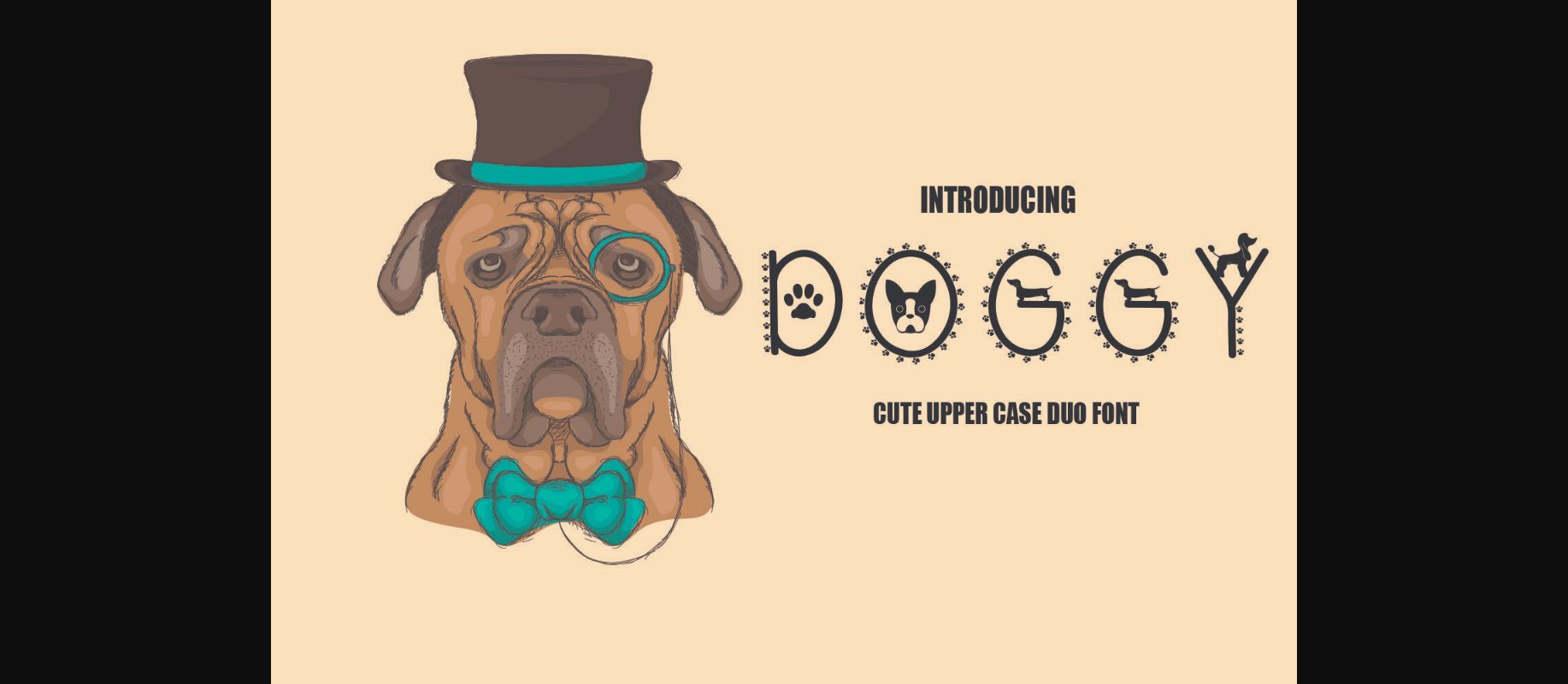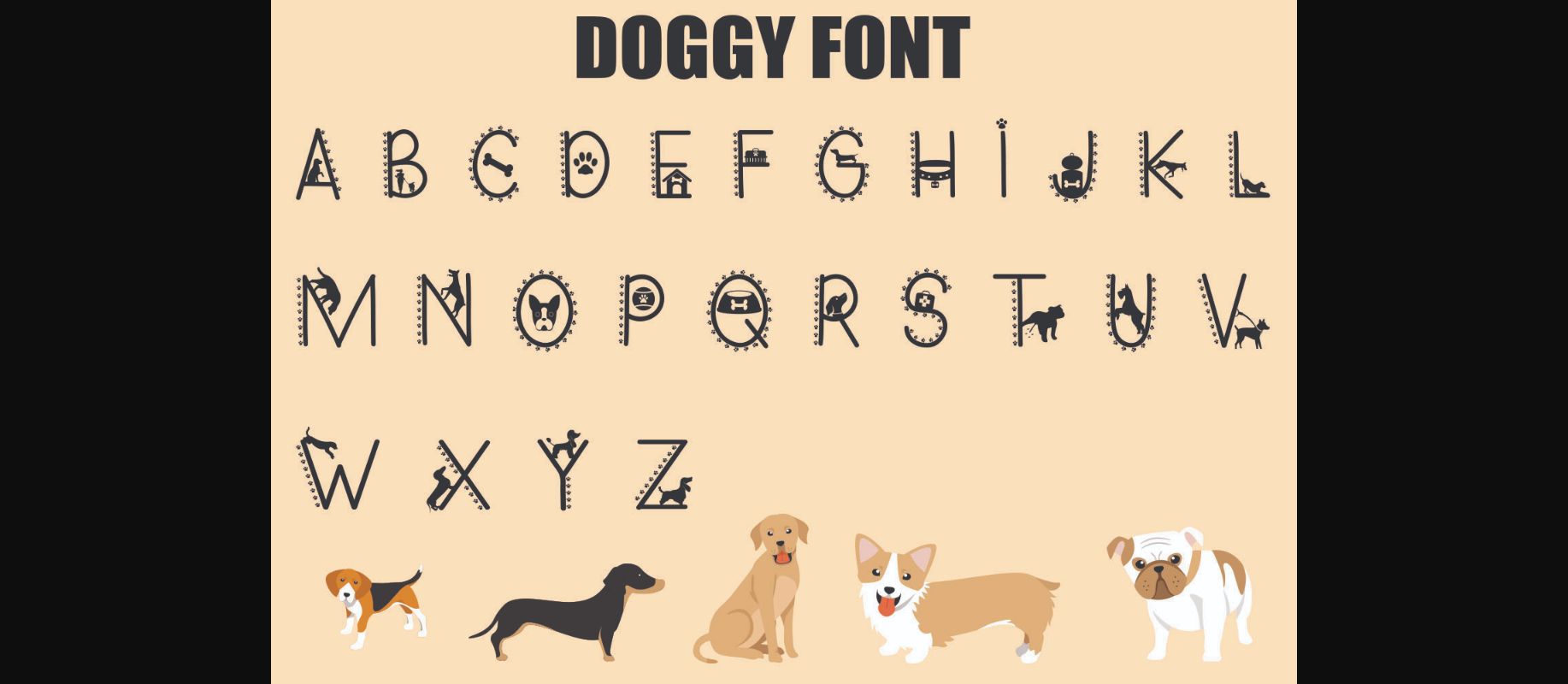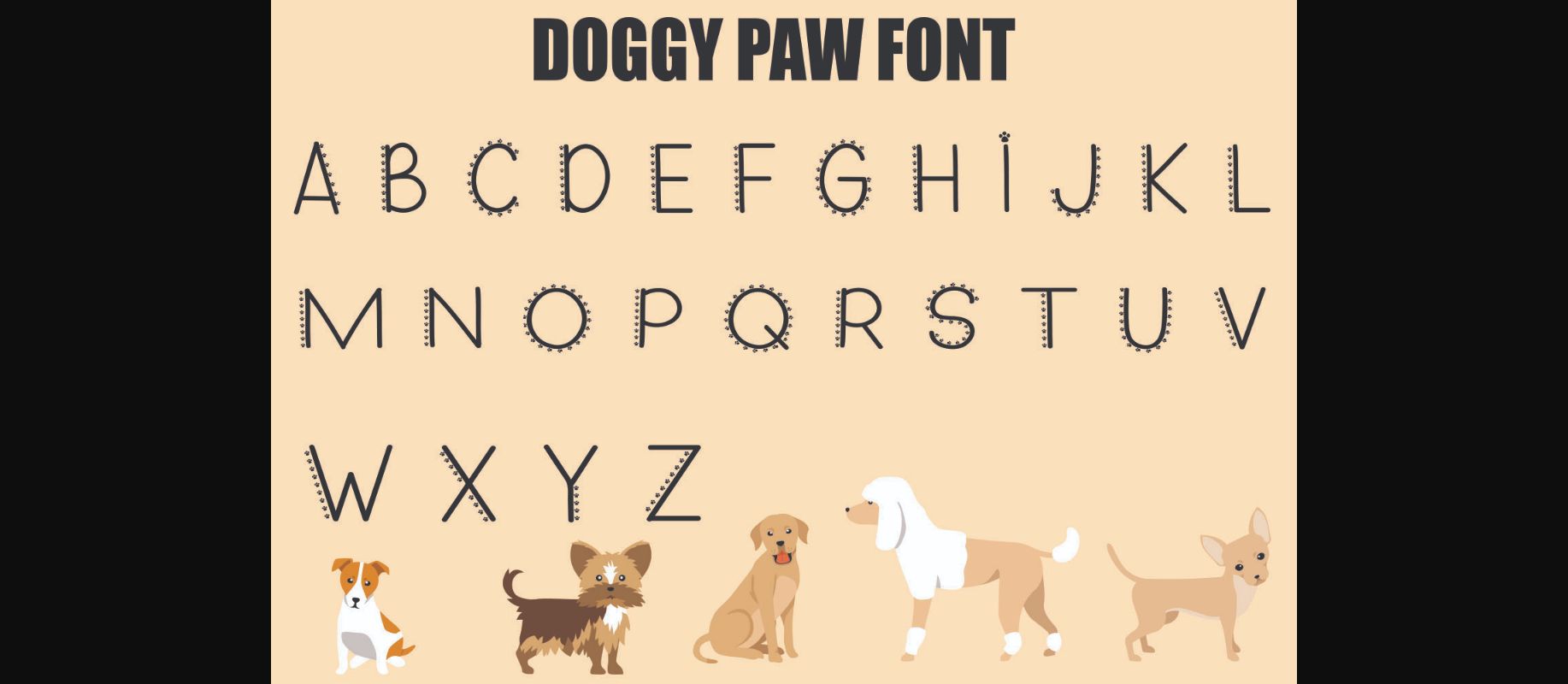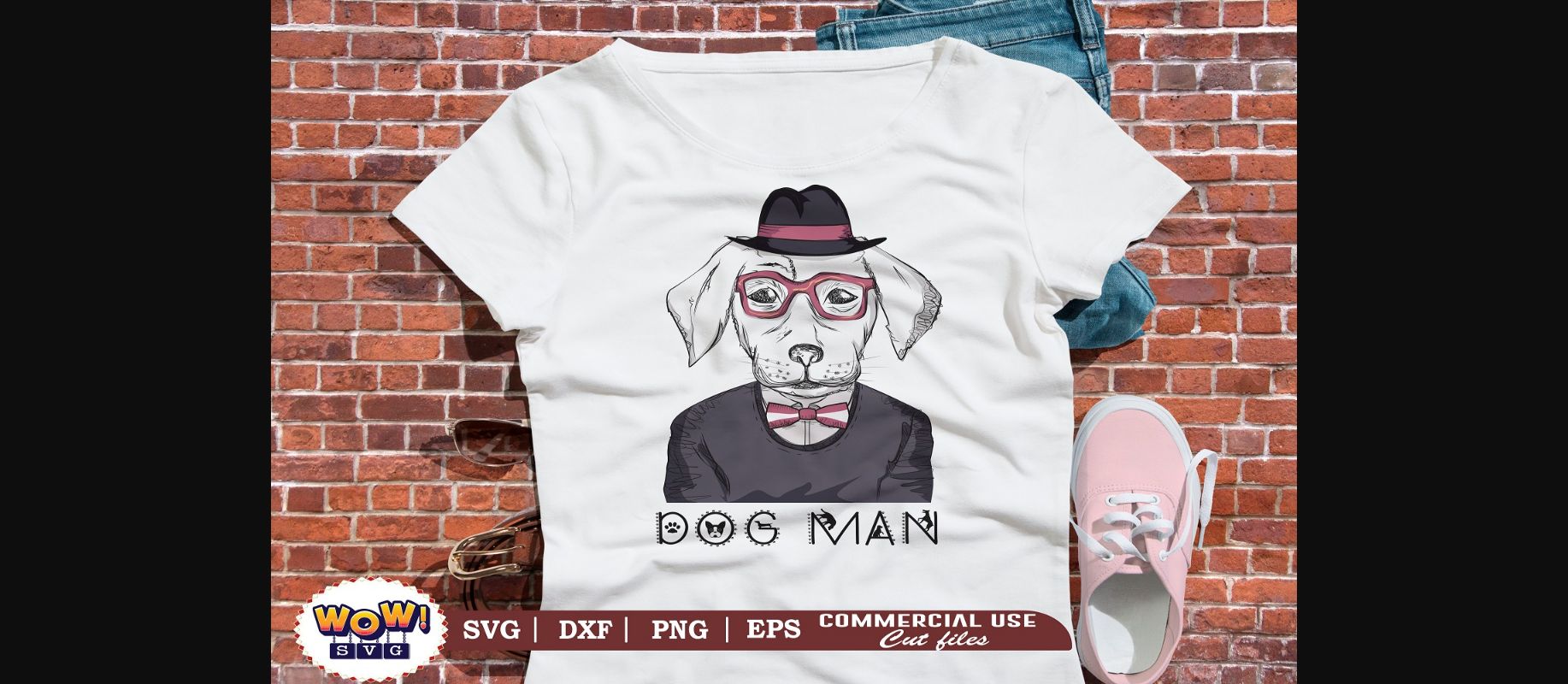
About Doggy Font
Doggy is a cute and incredibly friendly decorative font. Add this sweet font to your creative pet related ideas and notice how it will make them stand out!